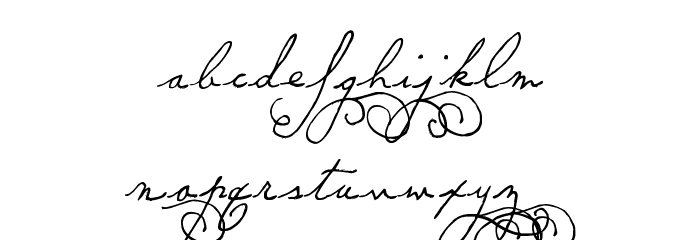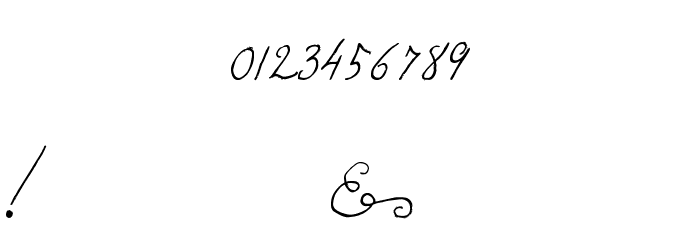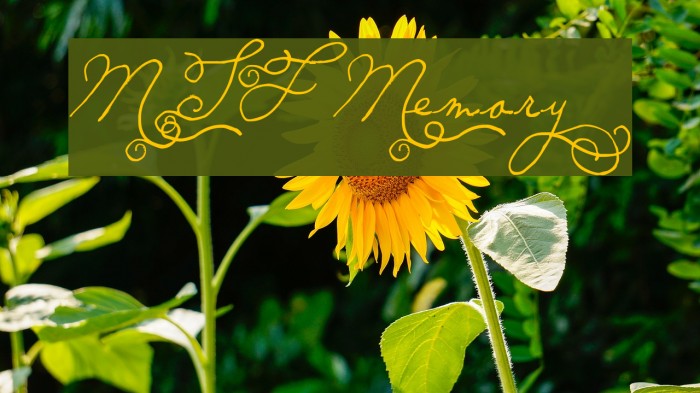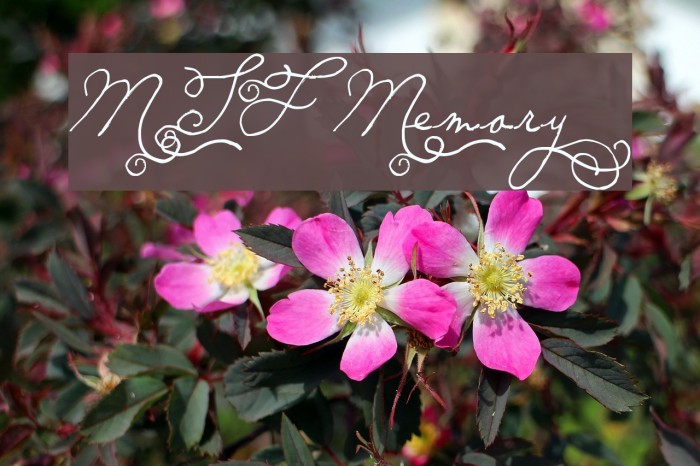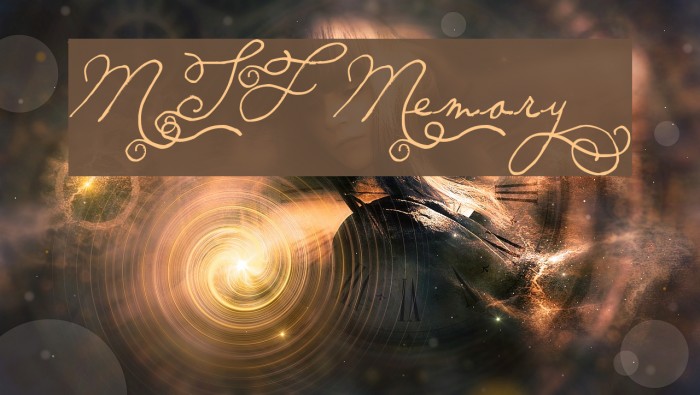
MTF Memory Font
This font is an elaborate and decorative script style, characterized by its intricate swirls and flourishes that extend from each letter. The uppercase letters are particularly ornate, with loops and curls that give a sense of elegance and sophistication. The lowercase letters maintain a cursive flow, though they are less embellished than the uppercase set. Numbers are more straightforward, yet they retain a slight flourish that ties them into the overall style. This font exudes a vintage charm, reminiscent of calligraphic handwriting, making it suitable for formal invitations or artistic projects.
An ornate script font with elaborate swirls and vintage charm.
- Proposed Projects: Ideal for wedding invitations, greeting cards, branding for luxury products, or any project requiring a touch of elegance and sophistication.
- Category: Script
- Character Spacing: Tight
- Contrast: High
- Use Case: Logos, Invitations, Artistic projects